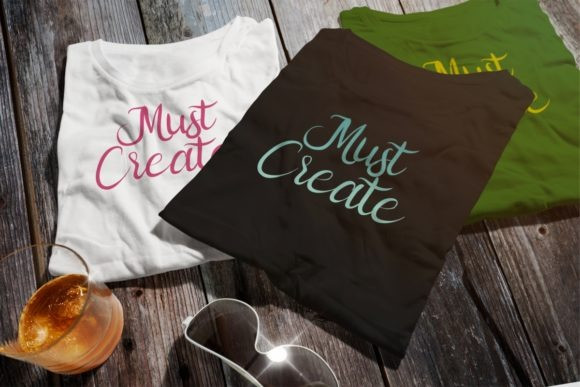
Joel Bold Script Font
Joel Bold Script Font – The Joel is a versatile font. It’s fun and playful. It’s style can be used to add a striking touch to your designs.
It’s suitable for branding, advertising, displays, posters, logos, movie titles, book covers, and much more!